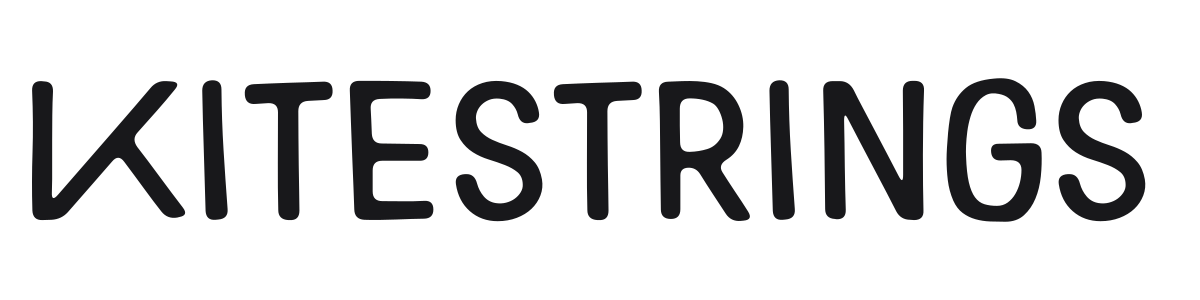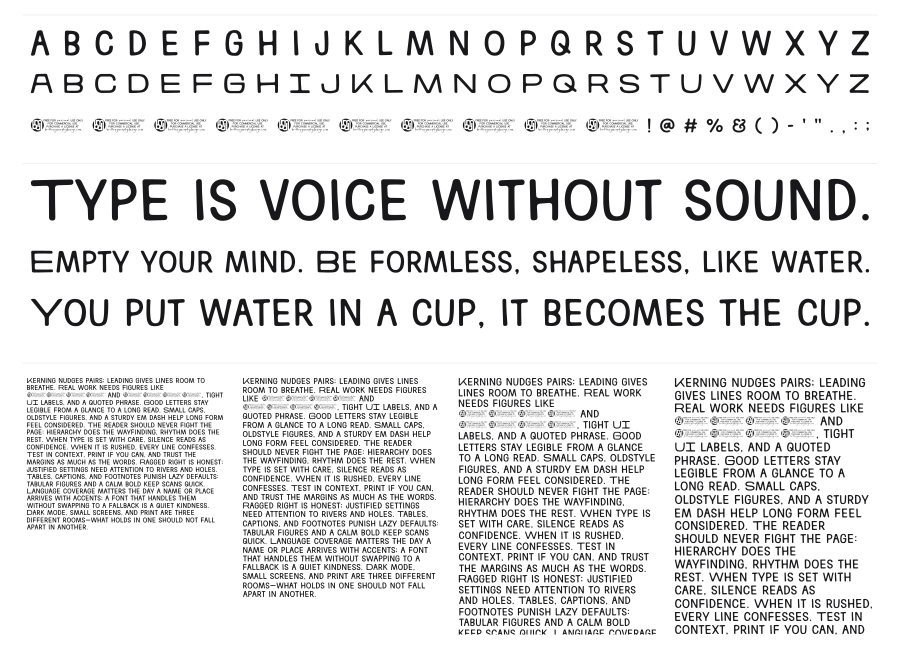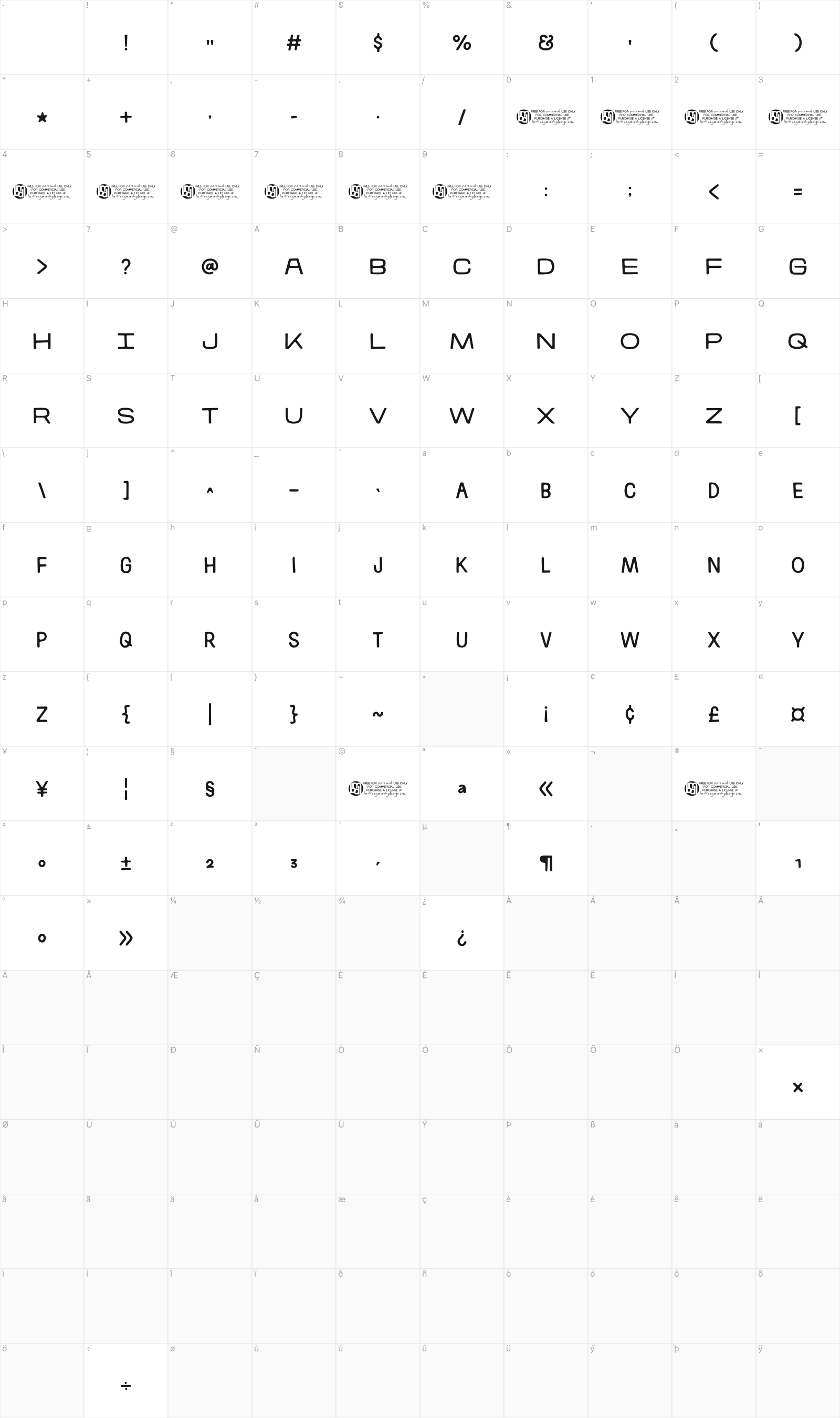
Kitestrings
Kitestrings is a cozy all-caps humanist sans designed by Brittney Murphy with a clever variable-width twist: elongated uppercase letters can be mixed with standard-width ones to mimic the look of custom hand-lettering. The rounded terminals and low stroke contrast keep it warm and approachable rather than corporate. It earns its place on packaging, logos, and social graphics where personality matters.